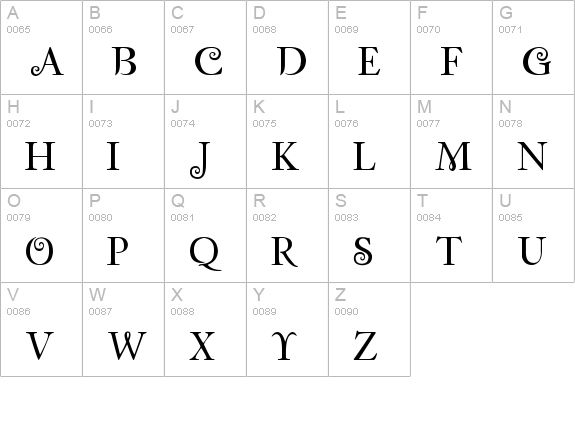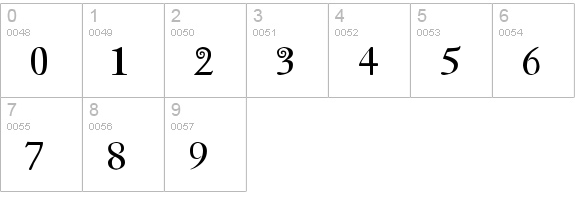
Twilight Font Details
The Twilight font is a captivating and elegant typeface that exudes a sense of mystery and romance. Its delicate serifs and flowing curves give it a timeless and enchanting quality, perfect for adding a touch of sophistication to your designs. Whether you're working on a wedding invitation, a book cover, or a branding project, the Twilight font will bring a touch of magic to your work. Best of all, the Twilight font is completely free to download at FontsMarket.com. Simply visit the website and add this beautiful typeface to your collection with just a few clicks. Don't miss out on the opportunity to enhance your designs with the enchanting Twilight font today!